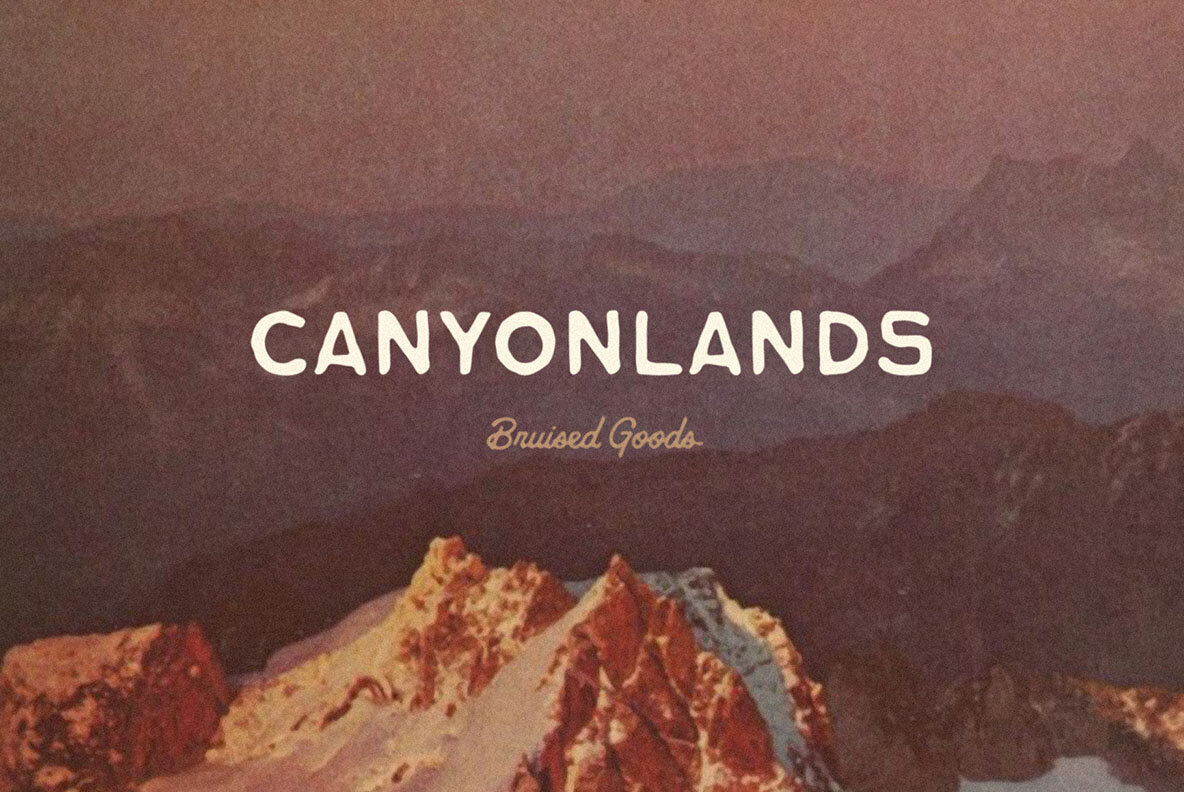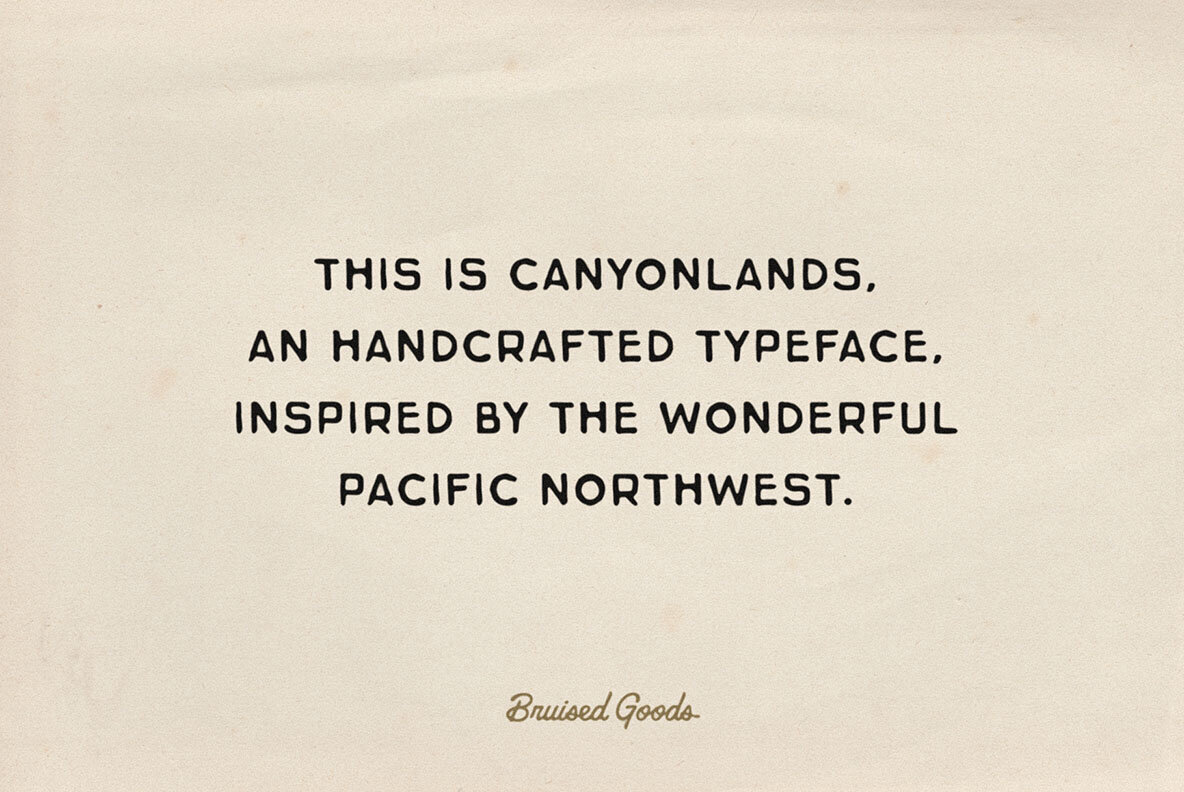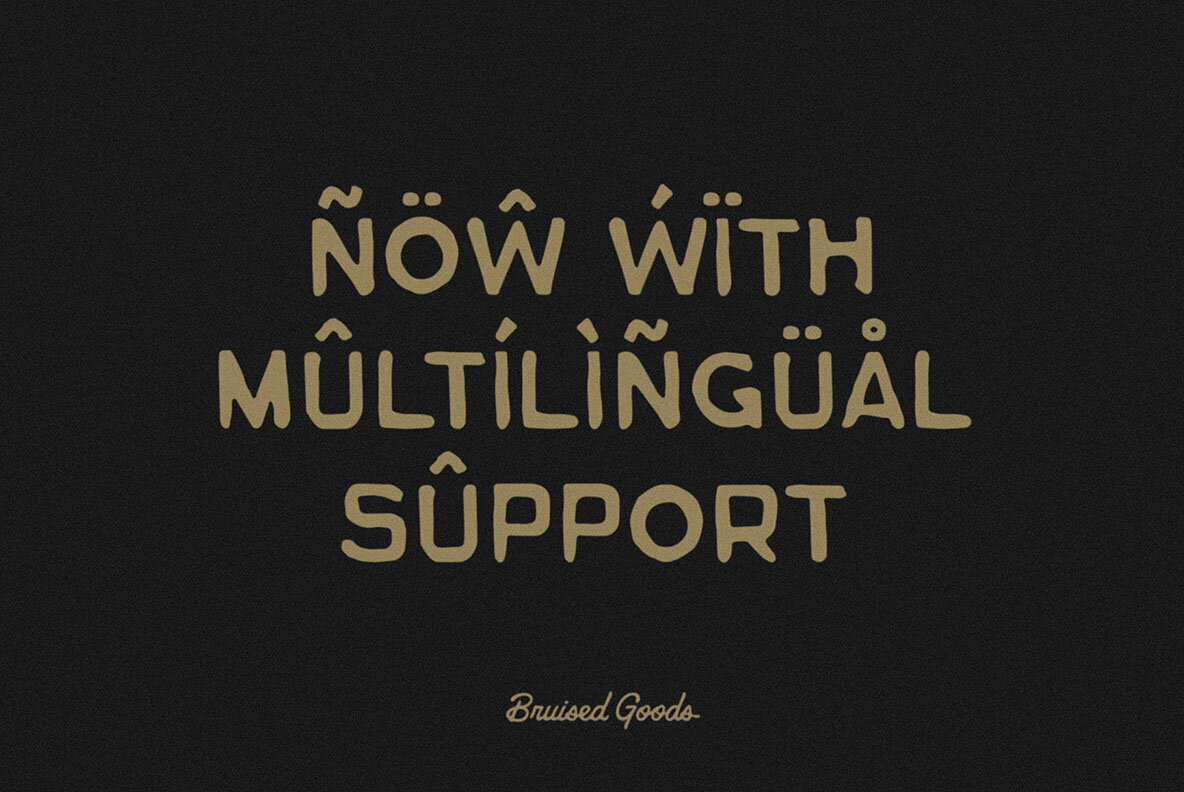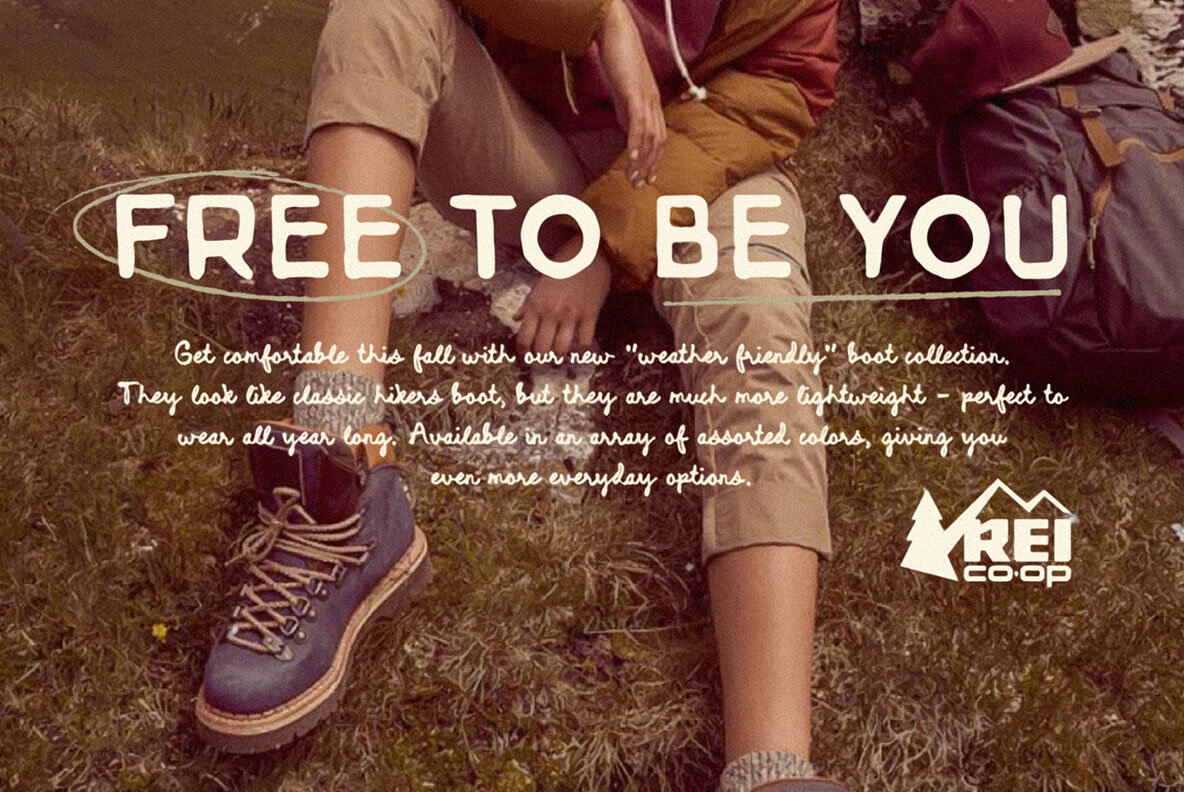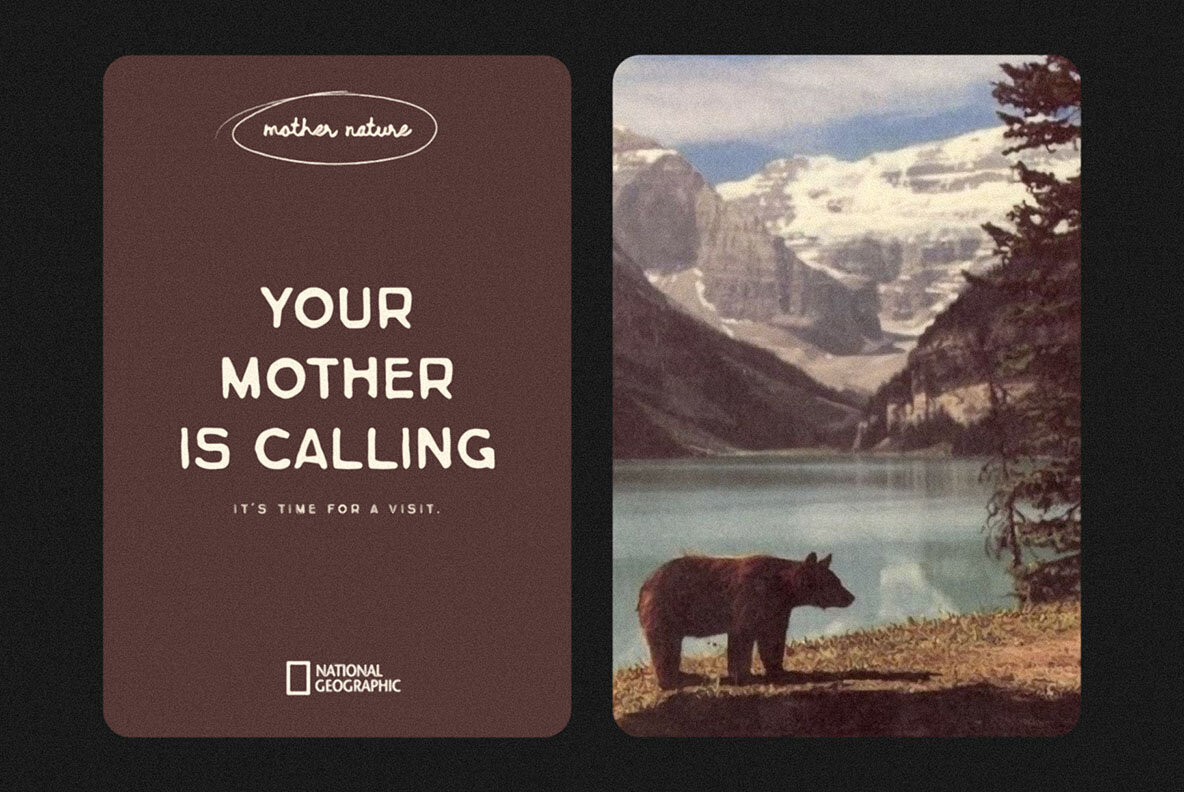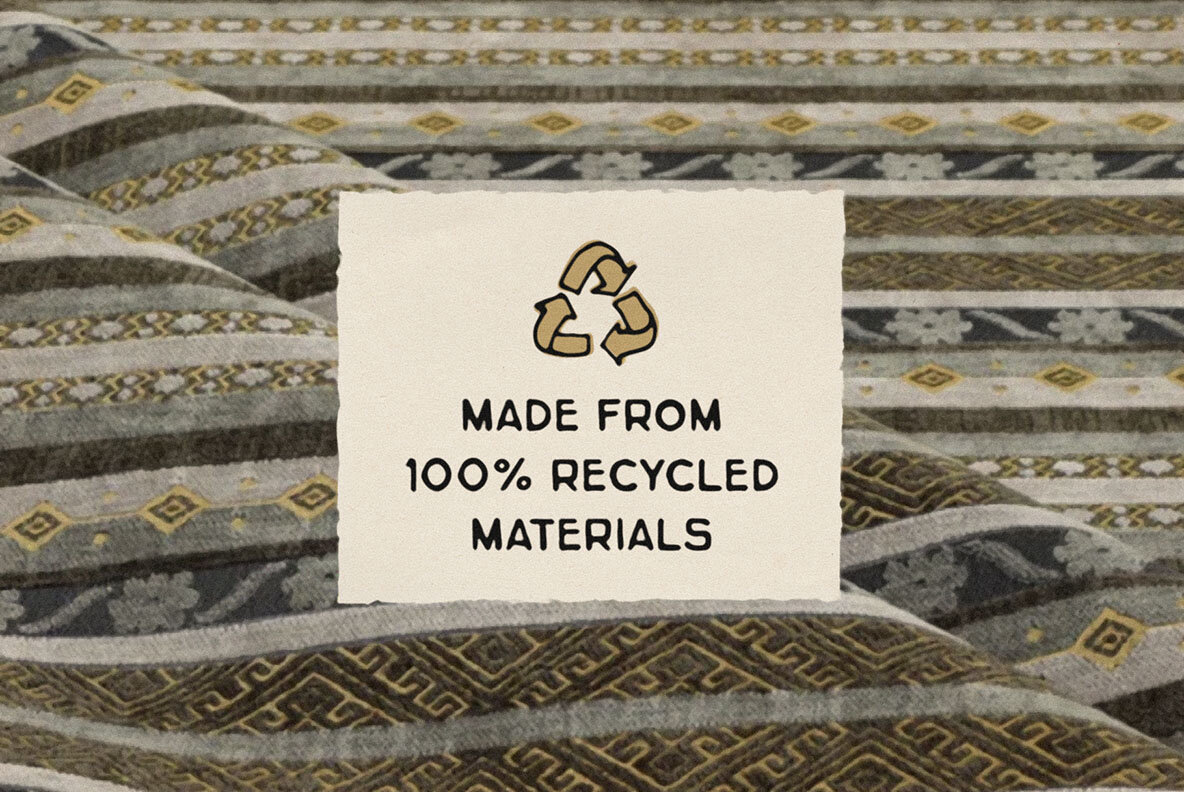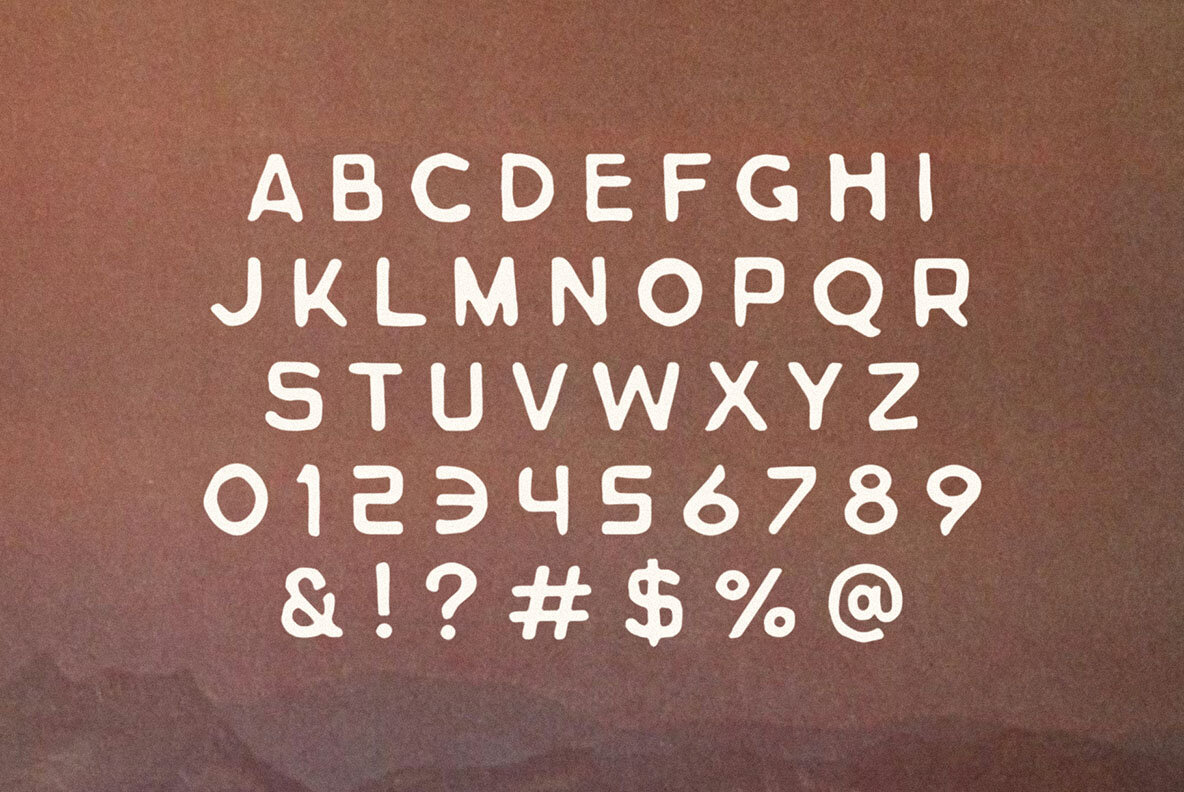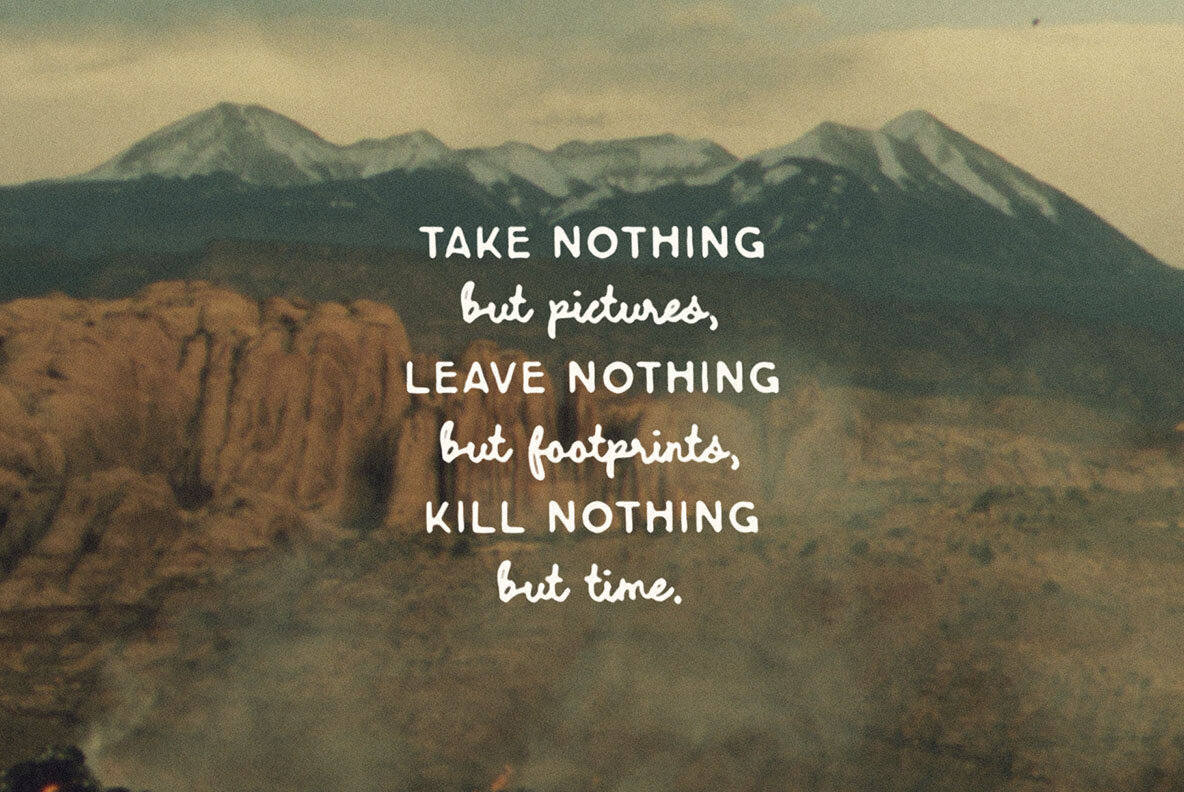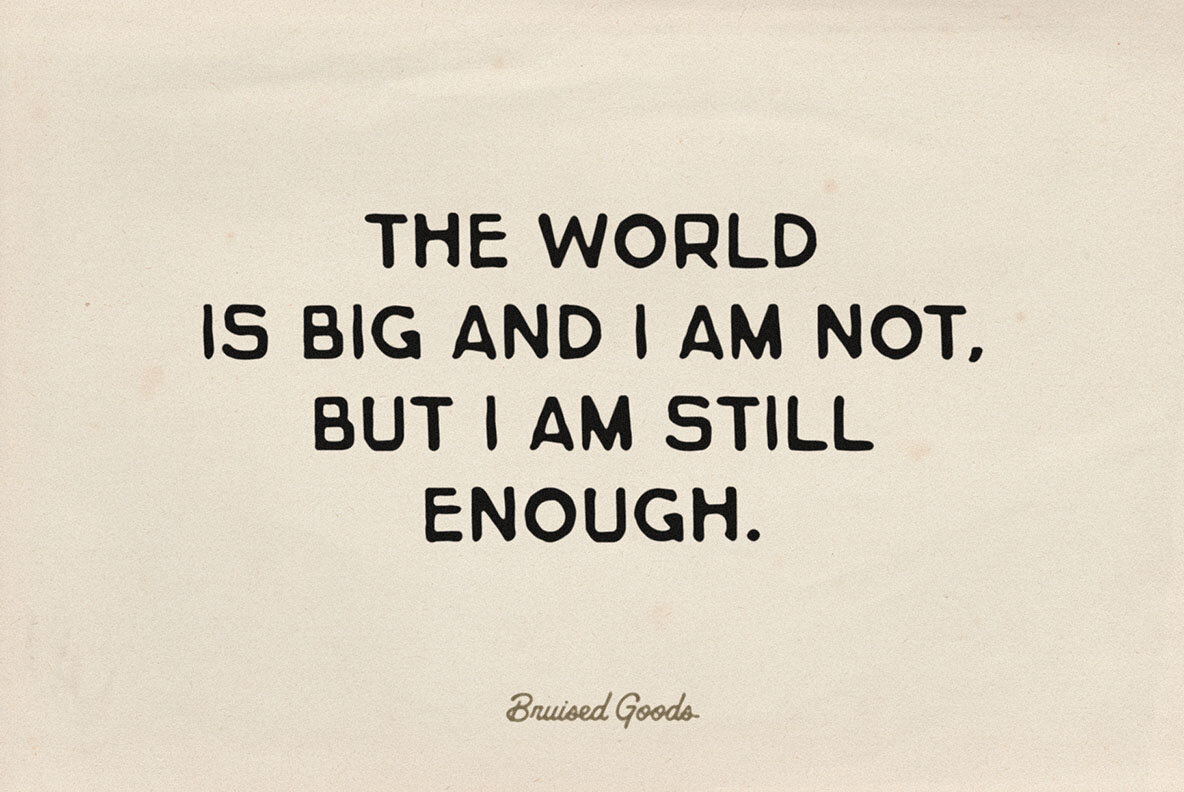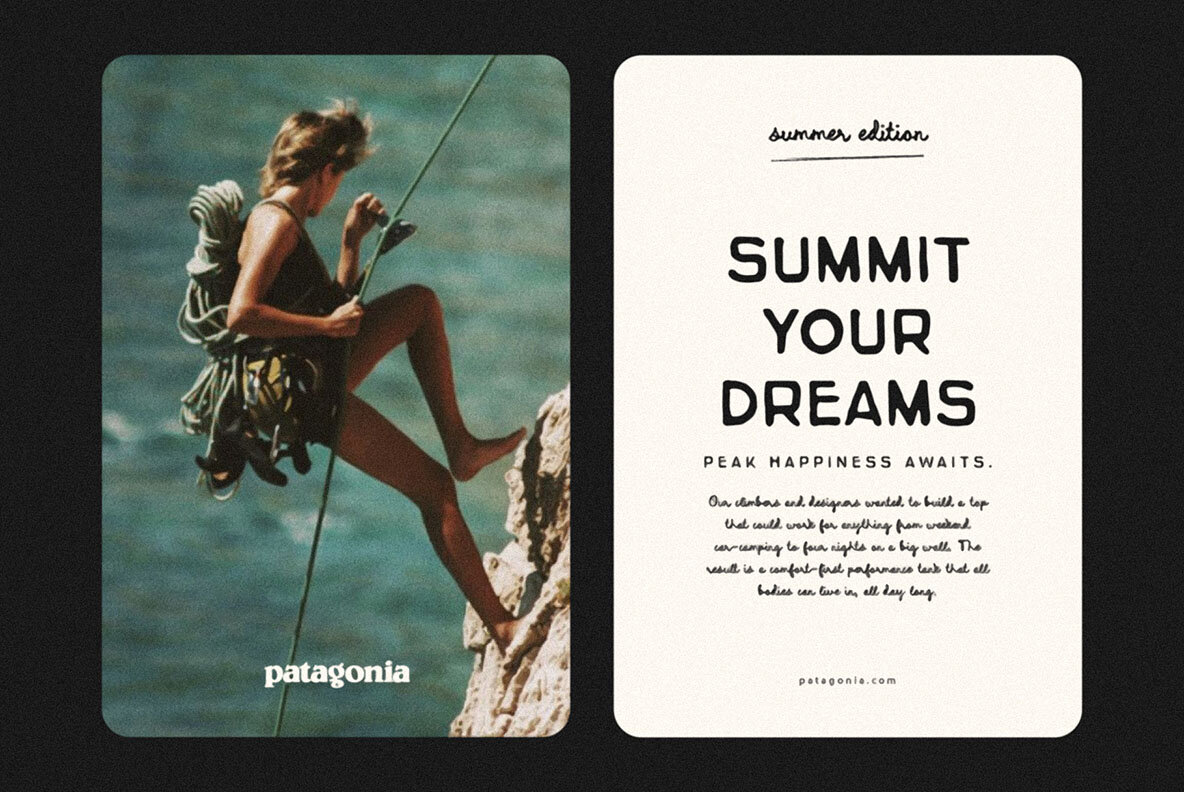
Canyonlands Font
Canyonlands
Canyonlands is a distinct handcrafted typeface, inspired by the captivating landscapes of the Pacific Northwest. Created with precision in Humboldt County, California, this font offers a versatile design perfect for various creative projects. Ideal uses include ads, album covers, apparel, cards, flyers, invitations, logos, menus, merchandise, packaging, signage, and web design.
Canyonlands features a total of 144 glyphs, incorporating all uppercase letters, numbers, symbols, and punctuation. It provides comprehensive language support for Danish, English, French, German, Irish, Italian, Portuguese, Spanish, Swedish, and Swiss German. This flexibility makes it an excellent choice for designers working on multilingual projects.